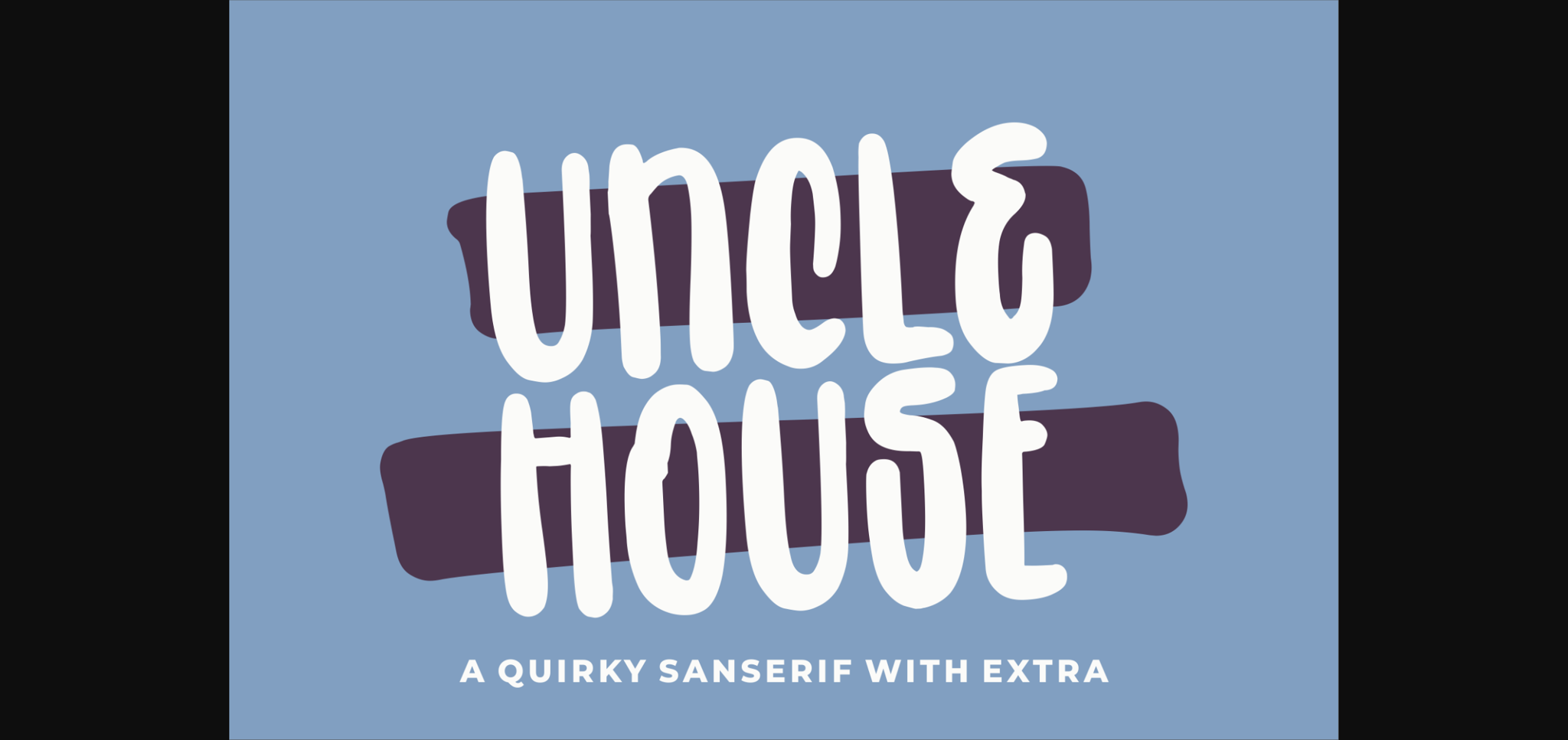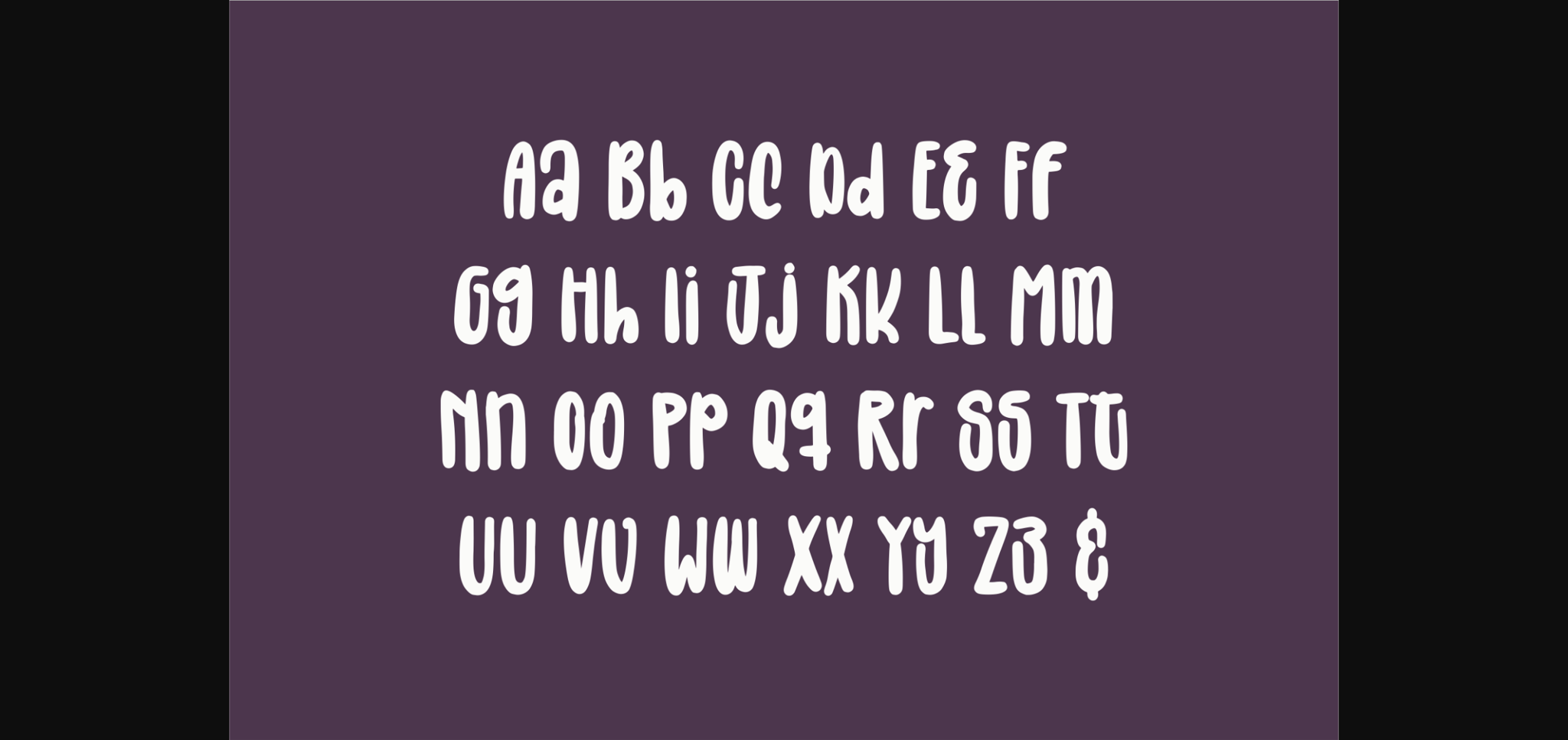
About Uncle House Font
Uncle House is a quirky sans serif font which works incredibly well on a variety of designs, due to its relaxed style. Whether you’re looking for fonts for Instagram or calligraphy scripts for DIY projects, Uncle House will turn any creative idea into a true piece of art!